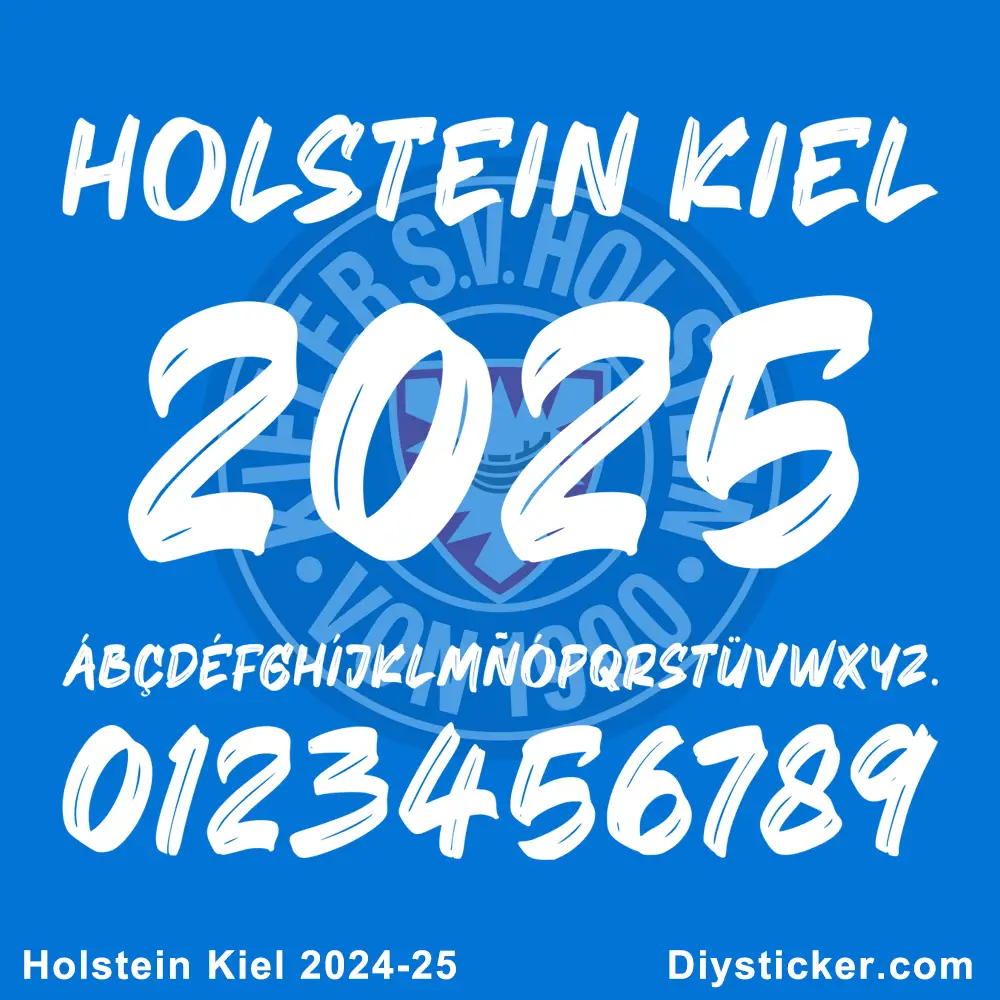
Get the official 2024-2025 typeface of Holstein Kiel, the same font used by the adidas-sponsored team. This premium font pack is perfect for fans, designers, and content creators looking to replicate the authentic look and feel of the club’s branding. Download instantly and create stunning designs for posters, social media, and fan merchandise.
Elevate your creative projects with the official Holstein Kiel 2024-25 Font. This is the exact typeface used across all official team communications, jerseys, and marketing materials for the current season, proudly sponsored by puma.